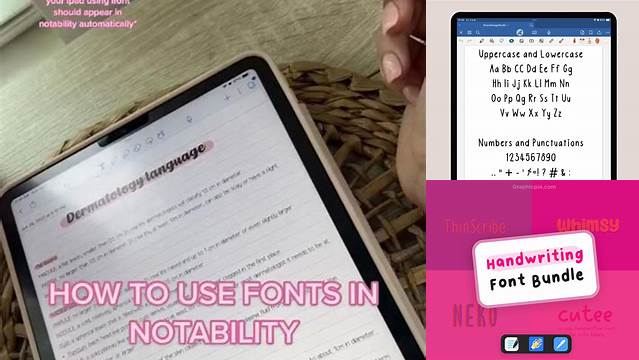
Notability Fonts: Your Guide To Customizing Notes
Hey there, note-taking enthusiasts! Ever wondered, can you download fonts to Notability and give your digital notebooks a personal touch? Well, you're in the right place! We're diving deep into the world of fonts in Notability, exploring how you can spice up your notes and make them truly your own. Get ready to transform your plain text into a visual feast! This guide is packed with everything you need to know about using different fonts in Notability, from the basics to some cool tips and tricks. So, let's get started and unlock the secrets to a more stylish and personalized note-taking experience! This is the ultimate guide for you, with simple explanations and loads of useful information. I know that you will love it!
Can You Add Fonts to Notability? The Quick Answer
Alright, let's cut to the chase, guys! The big question is: can you download fonts to Notability? The answer is yes, but with a little nuance. Notability itself doesn't have a built-in font download store. However, you can totally use custom fonts! You'll need to install the fonts on your iPad or iPhone first, and then Notability will recognize them. It's a super easy process, and we'll walk you through it step-by-step. Think of it like this: you're giving Notability a makeover, and fonts are your awesome accessories. This simple concept helps you understand that you can customize it the way you want. The customization capabilities are essential to make Notability stand out. It also makes you more comfortable using it as your primary note-taking app. And yes, there are a lot of font options available! Trust me, you can find the right font for you.
Choosing the Best Fonts for Notability Note-Taking
Alright, so you've got your custom fonts installed. Now comes the fun part: choosing the best ones for your Notability notes! When selecting fonts, consider readability first and foremost. You want fonts that are easy on the eyes, especially if you're taking a lot of notes. Sans-serif fonts, like Helvetica or Open Sans, are generally great for digital screens because they're clean and clear. Also, think about the style you want to convey. Do you want something formal, fun, or creative? Choose fonts that match your note-taking purpose. For example, a more playful font might be great for brainstorming, while a clean, professional font might be better for lecture notes.
Experiment with different font sizes and weights. Sometimes a font might look great in a small size, but it might be too difficult to read when enlarged. By experimenting, you can find the perfect match. Play around with different fonts to see what looks and feels best for you. The key is to find fonts that you enjoy using and that enhance your note-taking experience. Don't be afraid to mix and match fonts, but don't go overboard. Too many different fonts can make your notes look messy and disorganized. Just focus on making your notes look great! And most importantly, choose fonts that you love! You'll be spending a lot of time looking at them, so they should make you happy! This will make you more productive and you will like the way you make your notes.
Notability Font Styles: Bold, Italic, and More
So, you've picked your fonts, but did you know you can also style them to make your notes pop? In Notability, you can apply the standard font styles, such as bold, italic, and underline. These styles are super useful for highlighting key information, making headings stand out, or emphasizing important points. Use bold to emphasize important words or phrases. Italic can be used for quotes or to add a touch of elegance. Underline can be used to emphasize key information or to create a more traditional look.